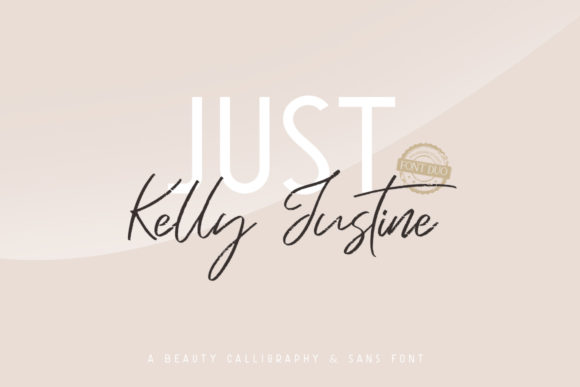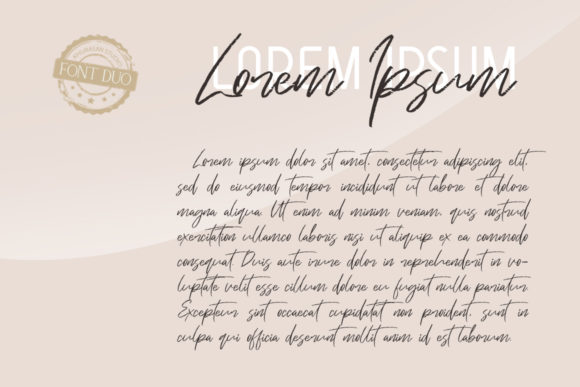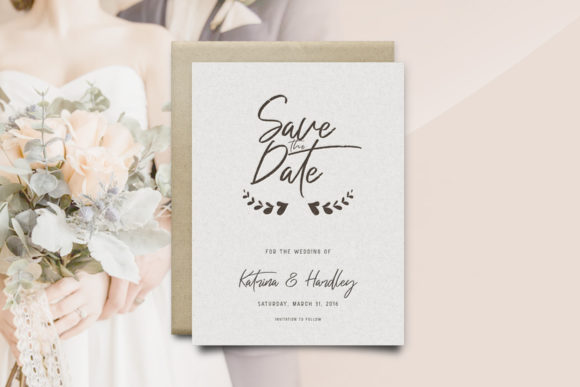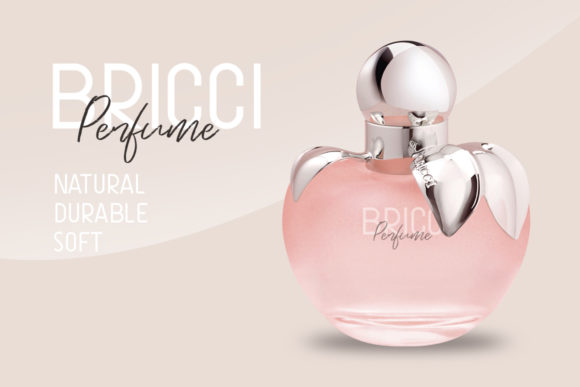
Just Kelly Justine Duo Font
About Just Kelly Justine Duo Font
Just Kelly Justine Duo is an amazing, authentic font duo. It comes in a script and sans version which can be combined perfectly, giving you the opportunity to create multiple unique designs with just this one download.